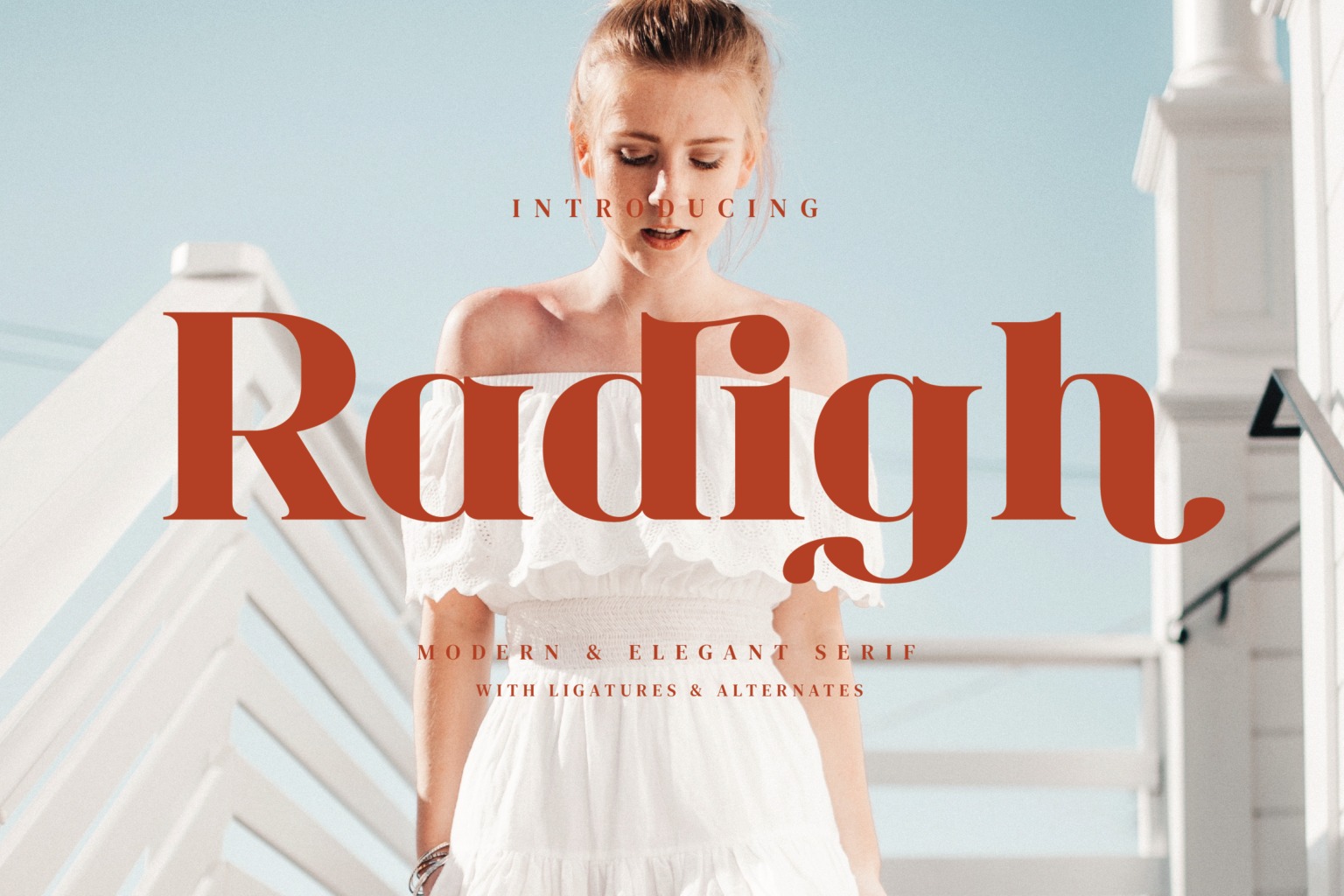
Radigh – Modern Elegant Font
Radigh – Modern Elegant Font is a versatile font designed to adapt beautifully across different design styles, offering dependable readability and balance. Radigh Stylish Ligature Typeface, inspired by the famous minimalist logo perfect for the purposes of designing templates, brochures, videos, advertising branding, logos and more.
– Ligatures
– International Accent